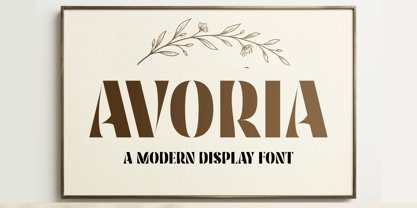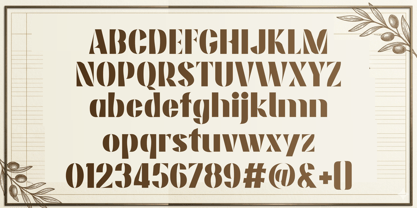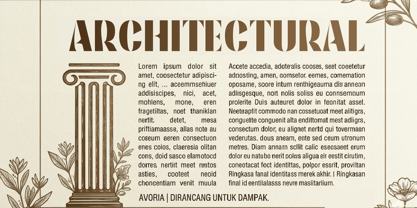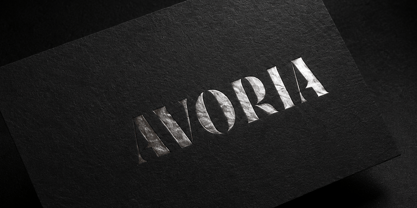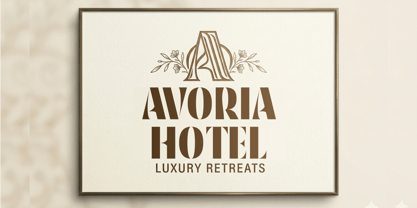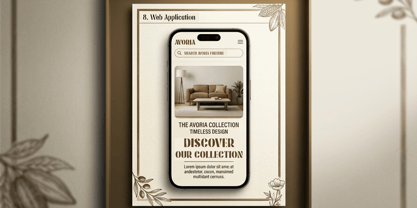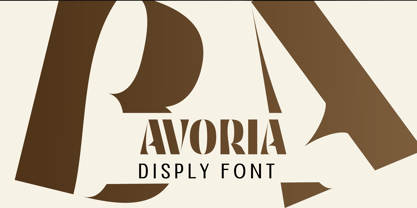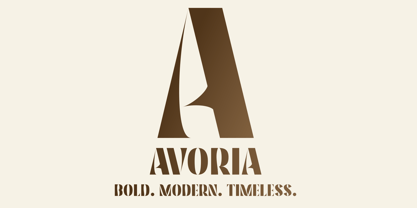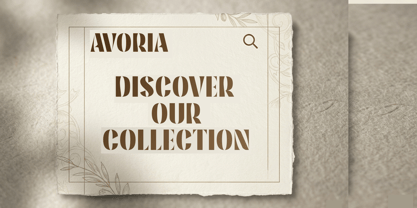
Avoria
La famille de polices Avoria a été conçue par Reza Mukhtazar et publiée par Rezastudio. Avoria contient 4 styles et options de package familial. En savoir plus sur cette famille
Experience Avoria, a modern display font where vintage grace meets contemporary boldness. Inspired by the sleek sophistication of art deco and the approachable warmth of minimalist design, Avoria is designed to make your text the centerpiece.
Avoria features high-contrast strokes and strong vertical lines, creating a dramatic sense of hierarchy and style. Its characters are clean yet full of personality, offering an "organic" feel within a structured framework. The smooth, flowing transitions between thick and thin give it a high-end, luxurious appeal.
Perfect for High-End Branding and Impactful Design.
Avoria excels where attention to detail matters. It is the ideal choice for:
• Logo Design: Create memorable, upscale brand identities.
• Headlines & Editorial: Command attention in magazines, books, and blogs.
• Packaging: Elevated aesthetics for cosmetics, luxury goods, and gourmet food.
• Wedding Invitations: Add a touch of modern class to invitations, menus, and signage.
• Advertising: Make bold statements in print and digital campaigns.
Features:
• Full Uppercase and Lowercase alphabet
• Numerals and extensive Punctuation
• Multilingual Support
• Clean, precise curves optimized for both large print and high-resolution screens.